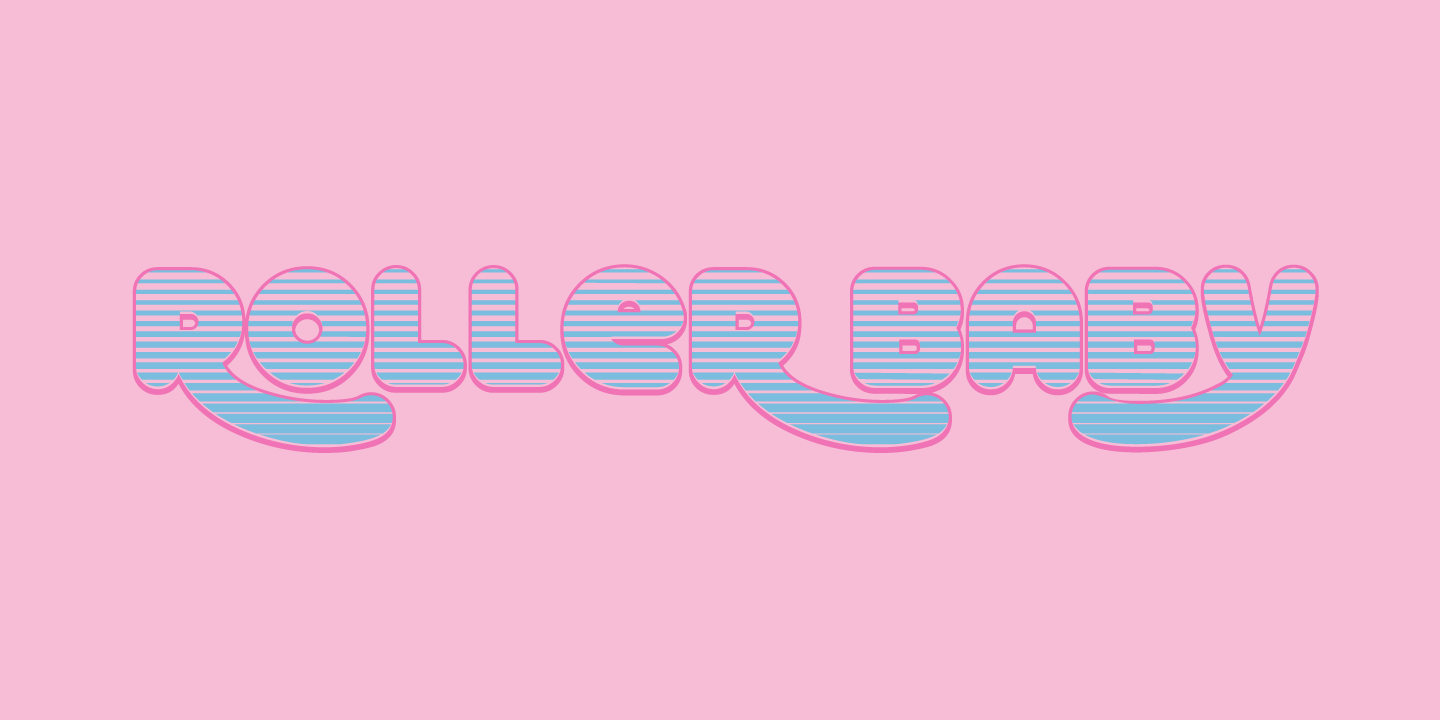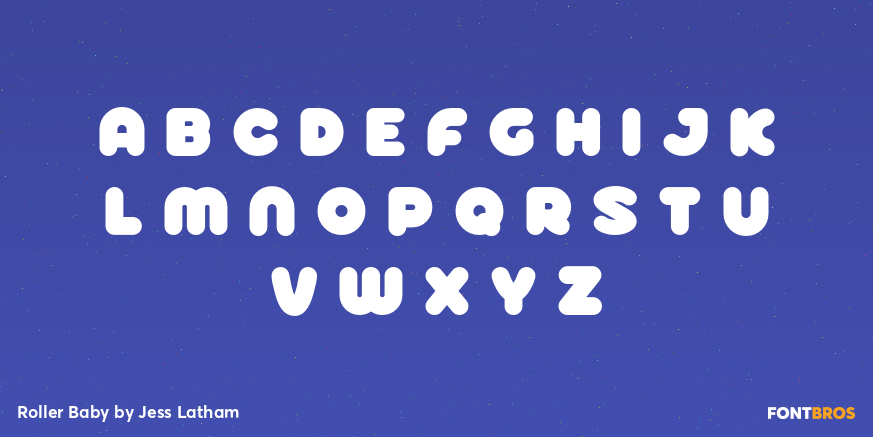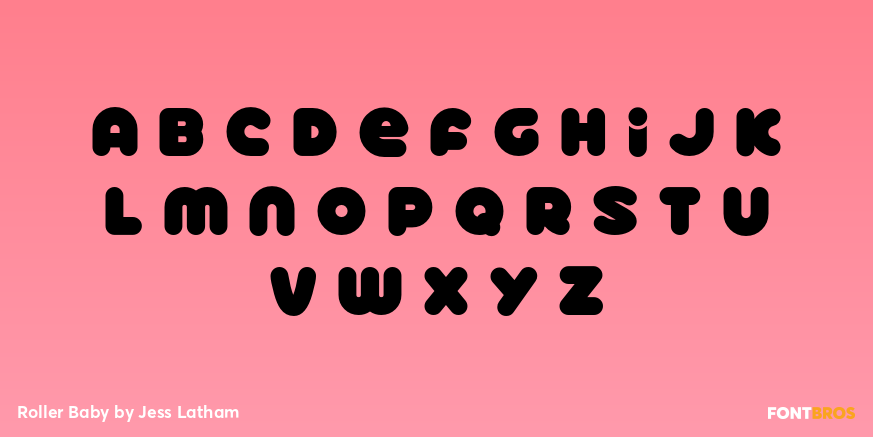
Roller Baby
Font Family by Jess Latham
Think roller-skating in the park, hot sticky summer days, car washes, wet t-shirts, being crushed out, blue skies and white puffy clouds!
The Roller Baby font family contains very unique variations. Roller Baby is a fun and fluffy unicase font. Roller Baby Alt adds super cool swashes to the mix. Roller Baby Shadow and Roller Baby Alt Shadow gives you an outlined shadow look. Roller Baby Gradient and Roller Baby Alt Gradient can be used to add interesting texture. All six fonts can also be layered to add even more fun effects. Roller Baby is that one font family that all designers need in their collection. It's hip, it's now and forever. Get it today!